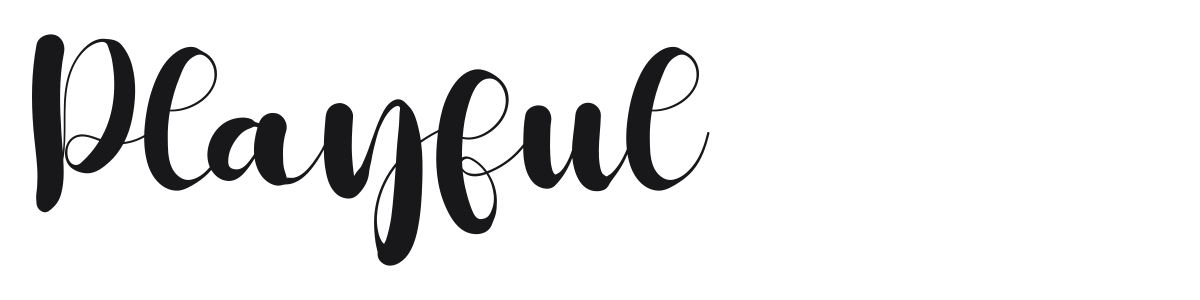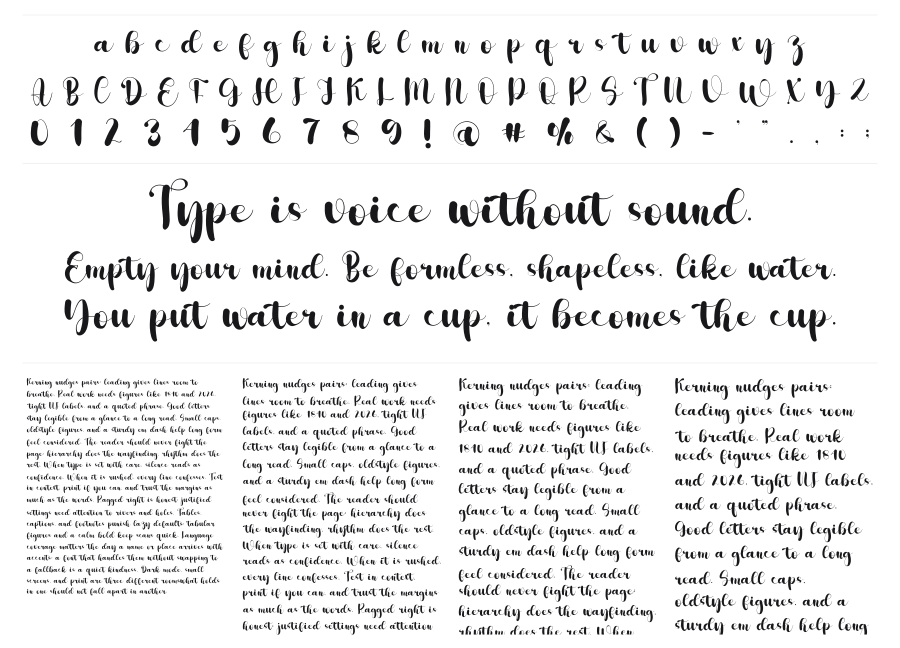
Playful
Playful is a buoyant casual script with sweeping loops, generous swashes, and strong stroke contrast that gives it the energy of fresh brush lettering. The letters bounce along the baseline with a handcrafted warmth that feels personal without being stiff. It suits branding, packaging, and event graphics where a cheerful, handwritten personality is the point.